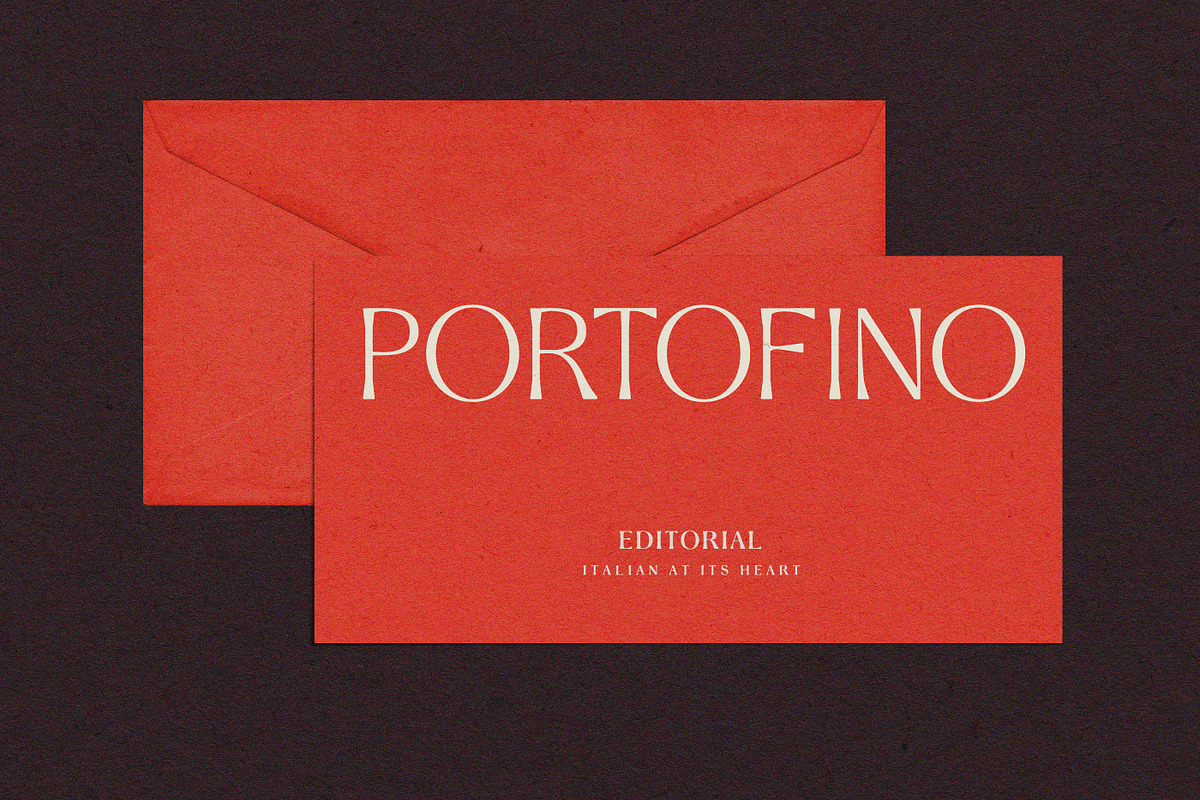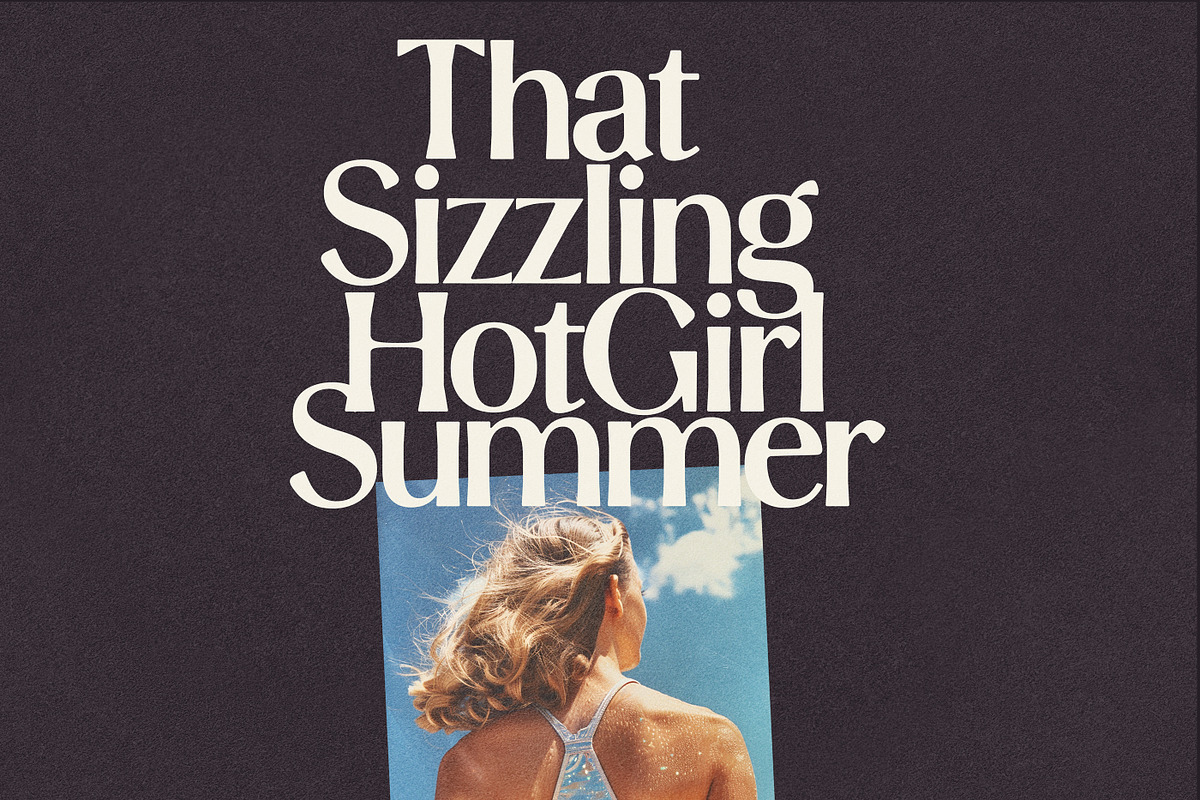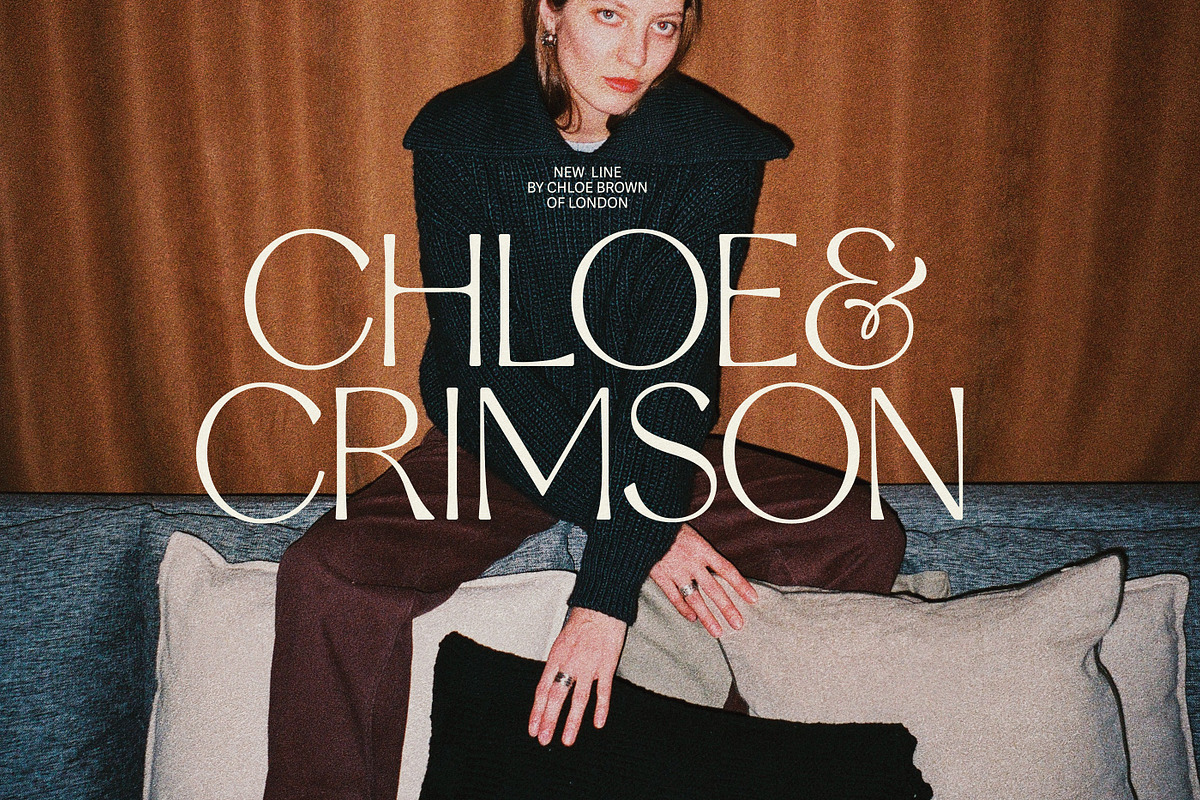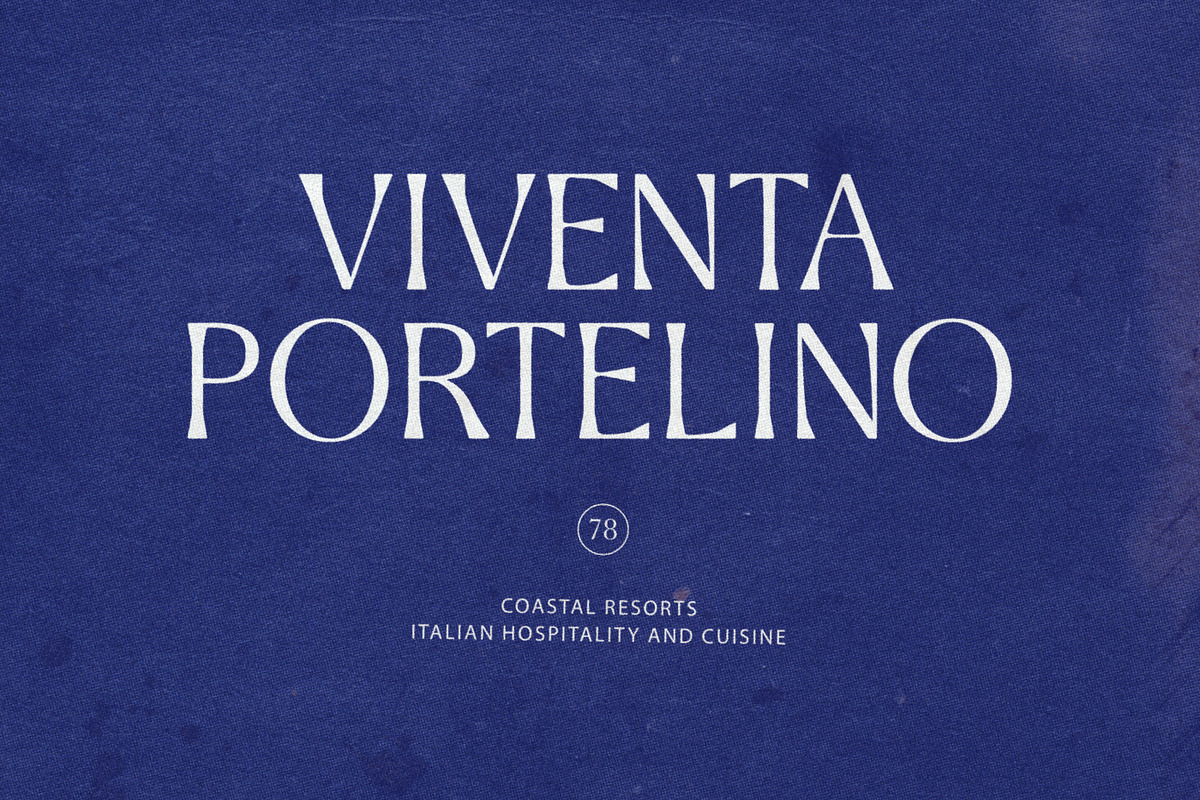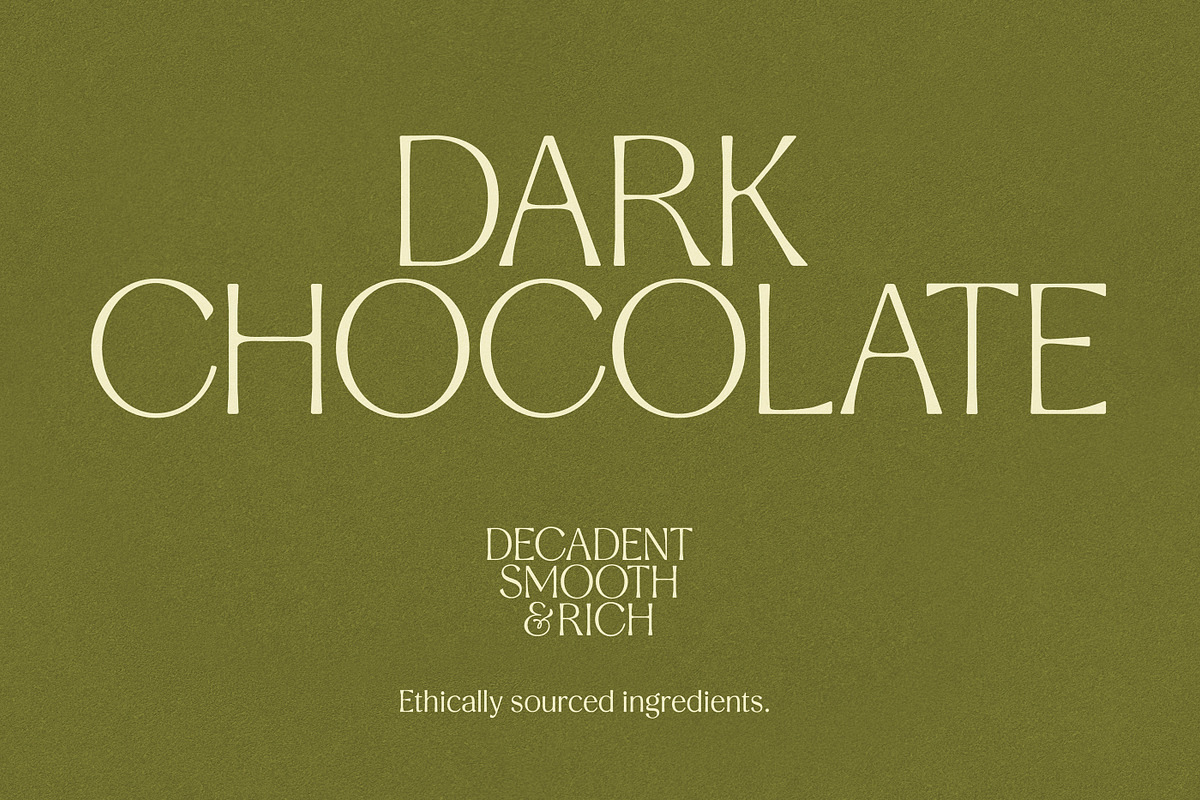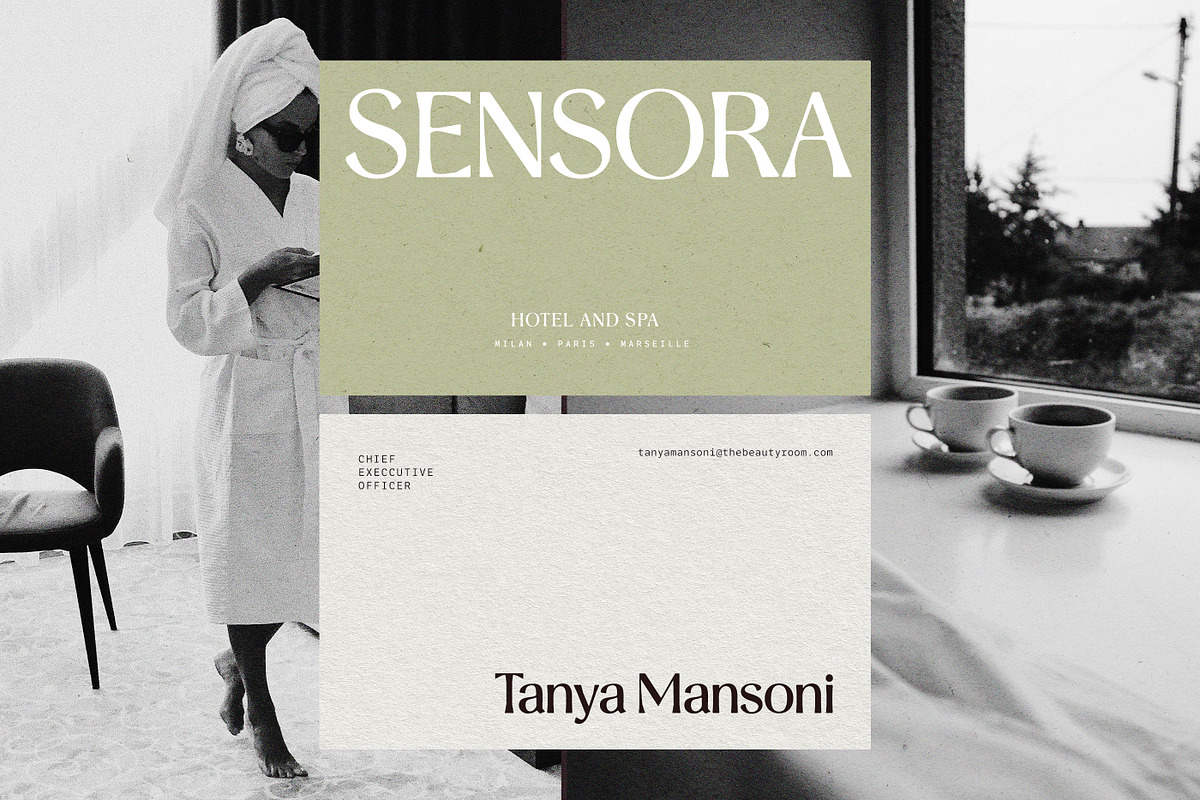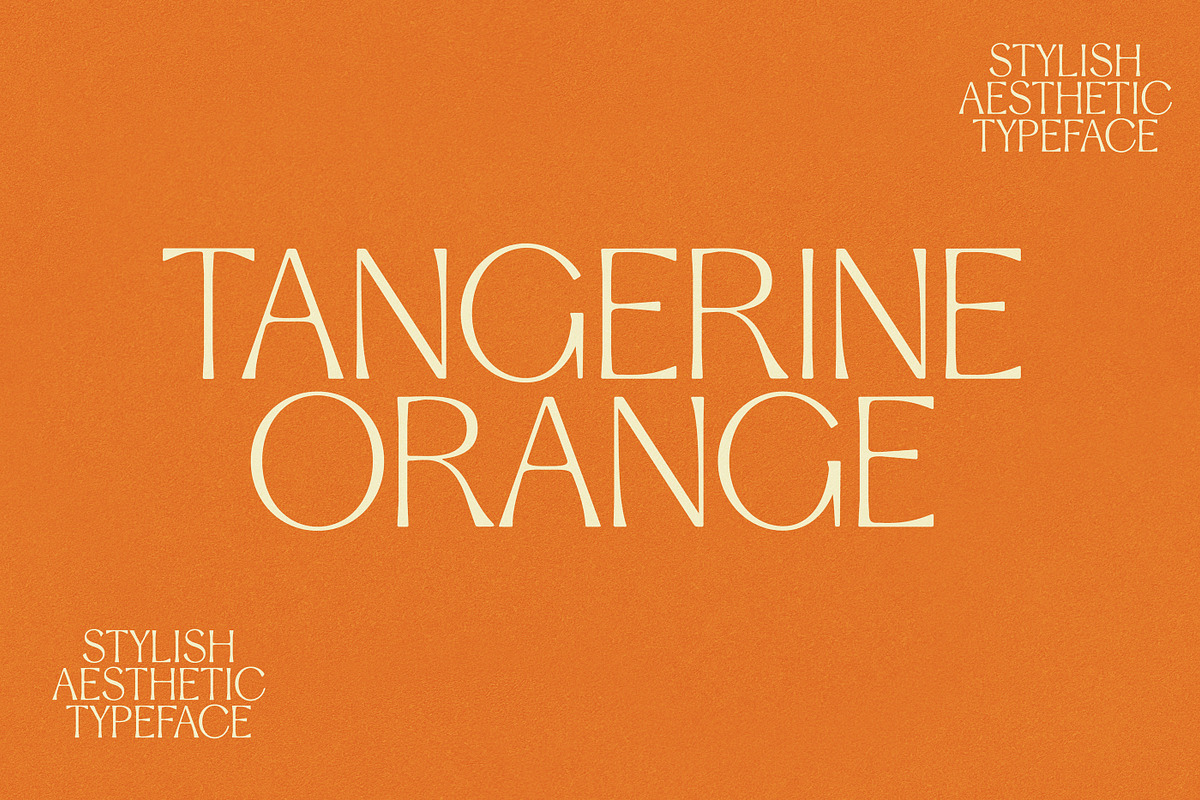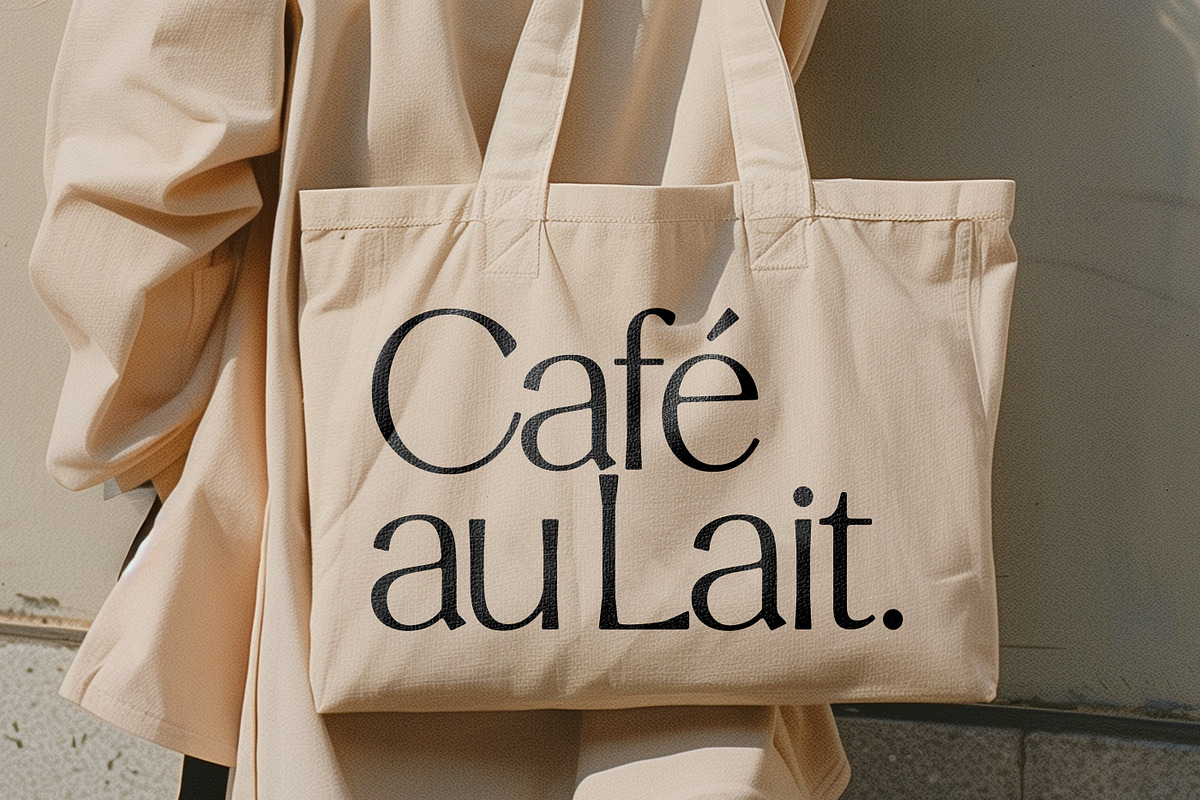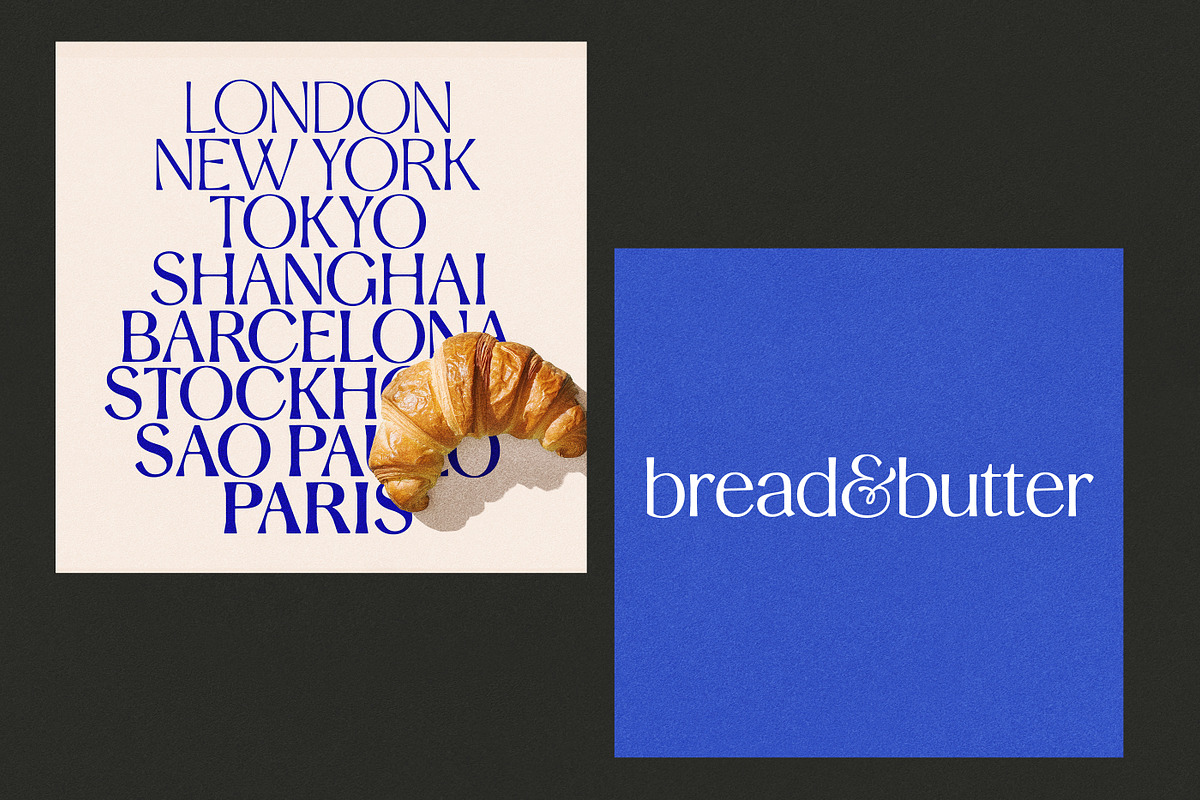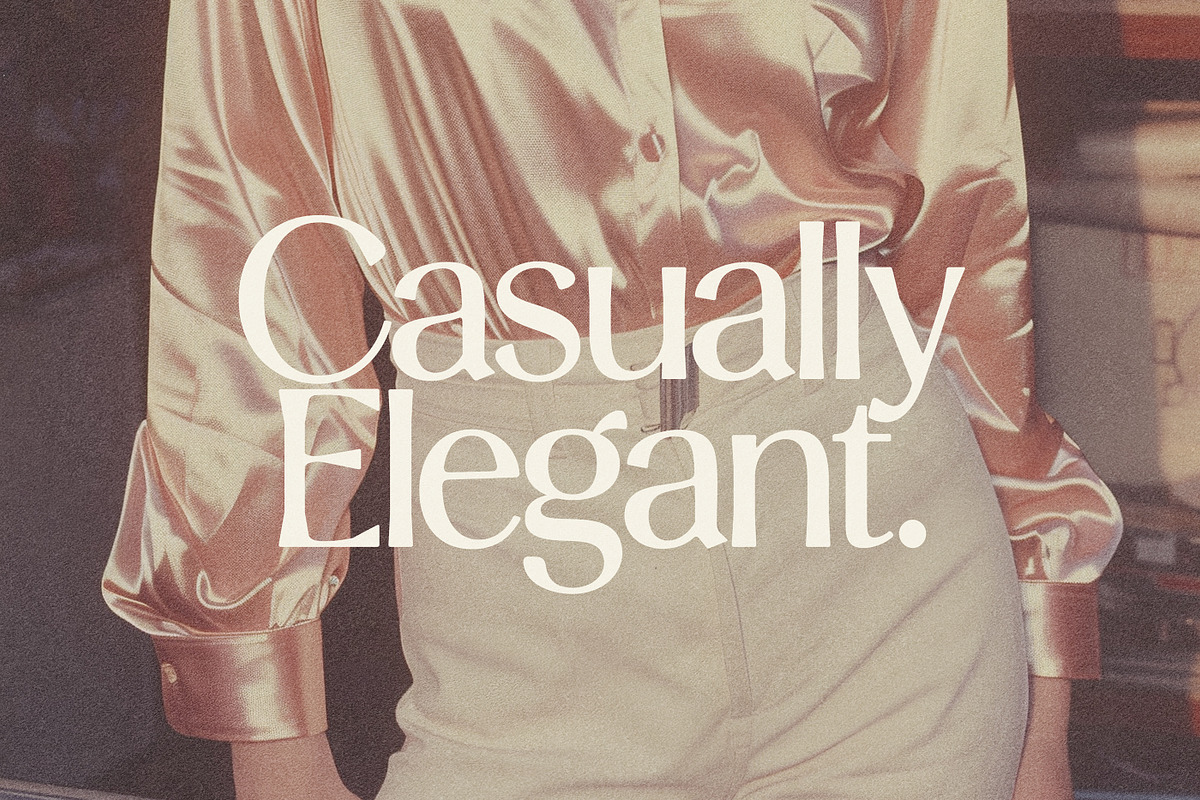
Stylish Aesthetic Typeface
Make heads turn with the new ' Stylish Aesthetic ' - A Chic, bold and sleek new multi-weight typeface. A high contrast sans, where smooth and angular forms meet in perfect harmony.
9 Weights in total - From a smooth & sophisticated 'Extra light' , to a dramatically angular ' Black' ....she has you covered for everything in between.